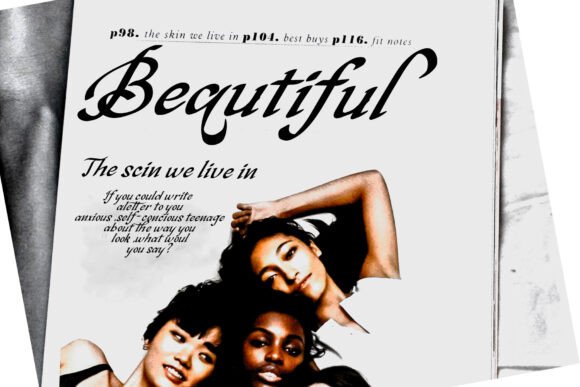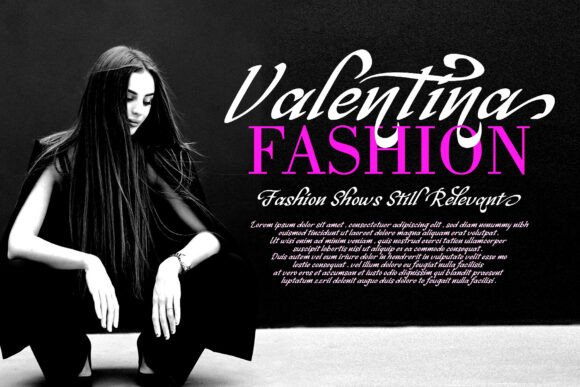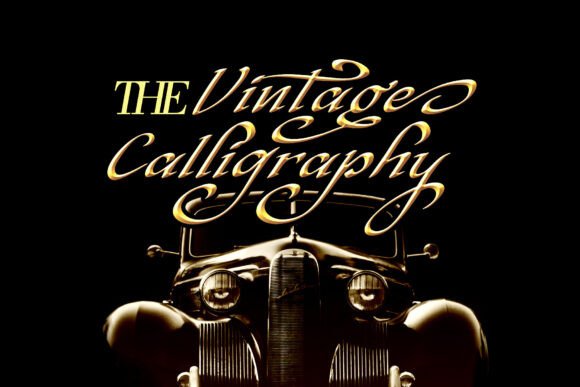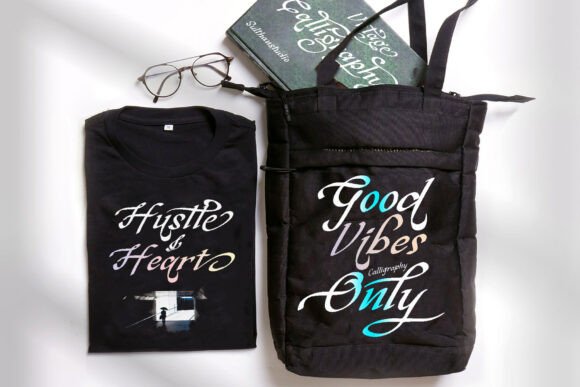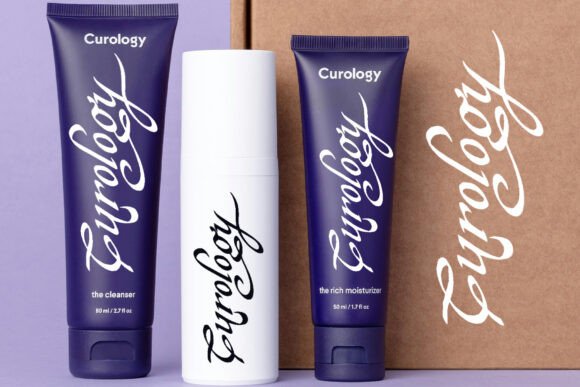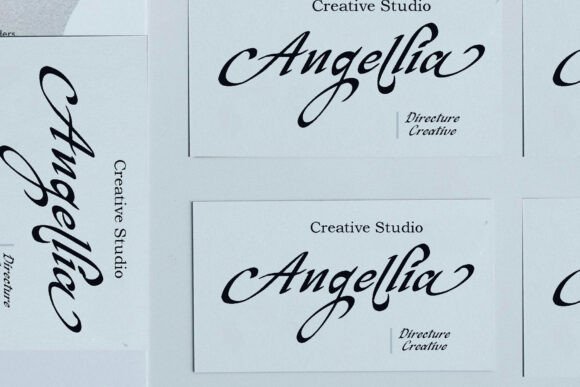
Elegant Night Font: A Timeless Vintage Calligraphy for Your Designs
Elegant night is an amazing vintage calligraphy font that has been making waves in the design world. Its natural and unique style makes it incredibly fitting to a large pool of designs. The only limit is your imagination! Whether you’re a designer, crafter, or simply someone who appreciates beautiful typography, Elegant Night Font is sure to captivate your senses and inspire your creativity.
The Charm of Vintage Calligraphy
Vintage calligraphy has a way of evoking a sense of nostalgia and sophistication. It’s a style that has been perfected over the years, and Elegant Night Font is no exception. This font boasts a classic, elegant look that’s reminiscent of traditional calligraphy, yet it has a unique twist that sets it apart from more traditional fonts. The natural flow and fluidity of Elegant Night Font make it perfect for adding a touch of elegance to any design.
What Makes Elegant Night Font So Special?
So, what makes Elegant Night Font so special? For starters, its unique and natural style makes it incredibly versatile. Whether you’re designing a wedding invitation, a logo, or a social media graphic, Elegant Night Font is sure to fit right in. The font’s vintage vibe also makes it perfect for projects that require a touch of nostalgia or classic charm. Additionally, Elegant Night Font is incredibly easy to read, making it perfect for both digital and print designs.
The possibilities are endless when it comes to using Elegant Night Font in your designs. Here are a few ideas to get you started:
- Wedding Invitations: Add a touch of elegance to your wedding invitations with Elegant Night Font. The font’s vintage vibe and classic charm make it perfect for formal wedding invitations.
- Logos: Create a sophisticated logo for your business with Elegant Night Font. The font’s unique style and natural flow make it perfect for businesses that want to stand out.
- Social Media Graphics: Add a touch of elegance to your social media graphics with Elegant Night Font. The font’s easy readability and classic charm make it perfect for social media posts.
- Stationery: Create beautiful stationery with Elegant Night Font. The font’s vintage vibe and natural flow make it perfect for letters, cards, and other correspondence.
Tips for Using Elegant Night Font
Here are a few tips for using Elegant Night Font in your designs:
- Pair it with other fonts: Elegant Night Font looks great when paired with other fonts. Try pairing it with a bold font for a striking contrast.
- Experiment with colors: Elegant Night Font looks great in a variety of colors. Experiment with different colors to find the one that works best for your design.
- Use it sparingly: While Elegant Night Font is beautiful, it can be overwhelming if used too much. Use it sparingly to add a touch of elegance to your design.
Elegant Night Font is a timeless vintage calligraphy font that’s perfect for designers and crafters. Its natural and unique style makes it incredibly fitting to a large pool of designs. With its endless design possibilities and versatility, Elegant Night Font is sure to inspire your creativity and take your designs to the next level. So why not give it a try? Download Elegant Night Font today and see for yourself why it’s an amazing vintage calligraphy font!